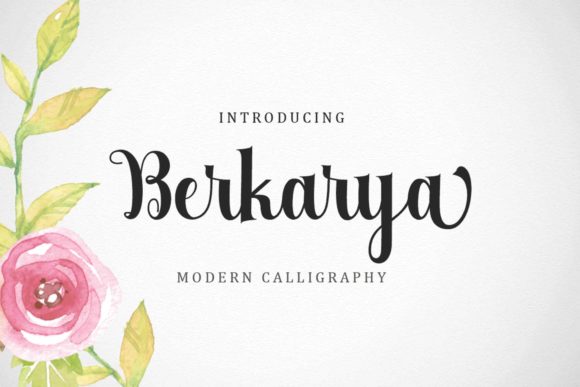
The Magic of Berkarya Font: Elevate Your Designs with a Romantic Touch
Have you ever been in the middle of a design project, and suddenly, you’re stuck on finding the perfect font? I recall a recent experience where a client requested a custom greeting card design with a romantic feel. As I scrolled through my font library, I stumbled upon Berkarya Font, and it was love at first sight! ✨ This dazzling handwritten font has been a game-changer for my designs, and I’m excited to share its magic with you.
An Honest Review of Berkarya Font
- ✨ Versatility: Berkarya Font is a script font that can be used for a wide range of applications, from greeting cards to headlines, and even social media graphics.
- ✅ PUA Encoding: This font is PUA encoded, making it easy to access all the beautiful glyphs and swashes.
- 💕 Romantic Feel: Berkarya Font adds a touch of romance to any design, making it perfect for wedding-related projects, Valentine’s Day cards, or any design that requires a personal touch.
- 🎨 Highly Customizable: With its extensive range of glyphs and swashes, you can experiment with different combinations to create a unique look.
While Berkarya Font is an amazing addition to any design project, there are a few things to keep in mind: ⚠️
- 🤔 Legibility at Small Sizes: As with many script fonts, Berkarya may lose legibility when used at very small sizes. Make sure to test it at different sizes to ensure it works for your project.
- ⚠️ Overuse of Swashes: While the swashes are beautiful, overusing them can make the text look cluttered. Balance is key when working with this font.
The Designer Inspiration Behind Berkarya Font
The story behind Berkarya Font is one of passion and creativity. The designer, inspired by traditional Indonesian art and culture, aimed to create a font that would capture the essence of romance and elegance. With its intricate details and beautiful swashes, Berkarya Font is a testament to the power of design to evoke emotions and create connections.
Q: What is PUA encoding, and how does it benefit Berkarya Font?
A: PUA (Private Use Area) encoding allows designers to access a range of glyphs and swashes that are not available in standard fonts. This means you can easily access and use the beautiful glyphs and swashes in Berkarya Font to create stunning designs.
Q: Is Berkarya Font suitable for body text?
A: While Berkarya Font is a beautiful addition to any design, it’s best suited for headlines, titles, and short paragraphs. For body text, a more legible font may be more suitable.